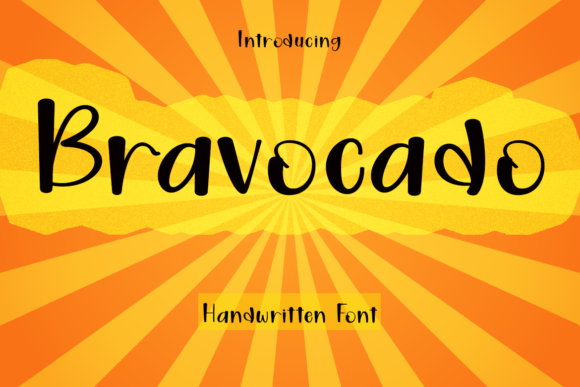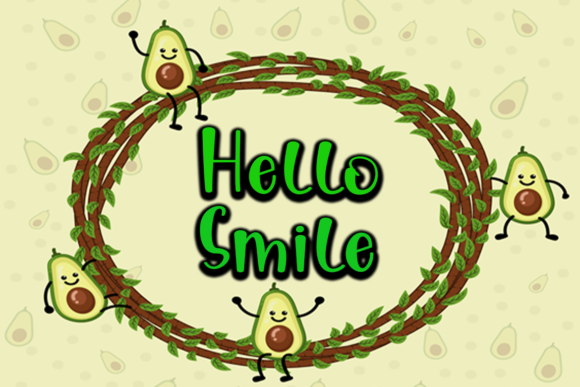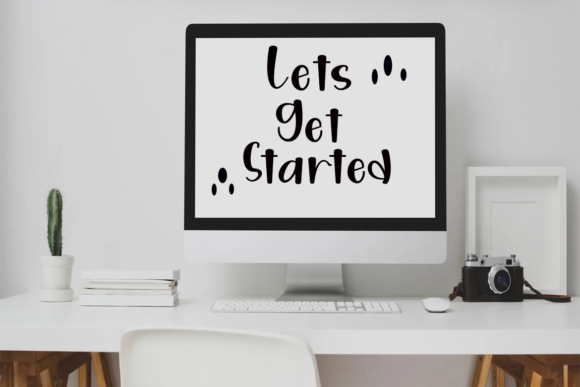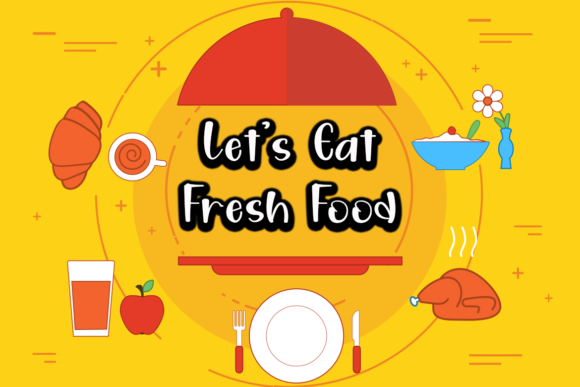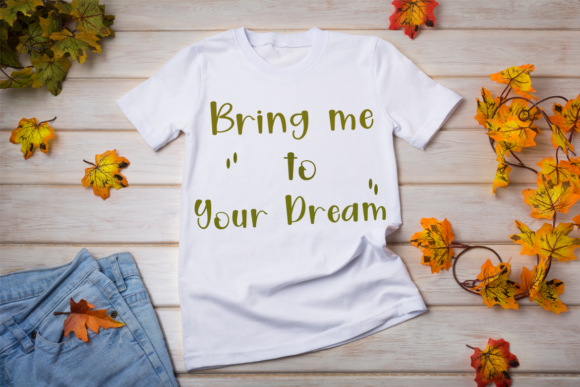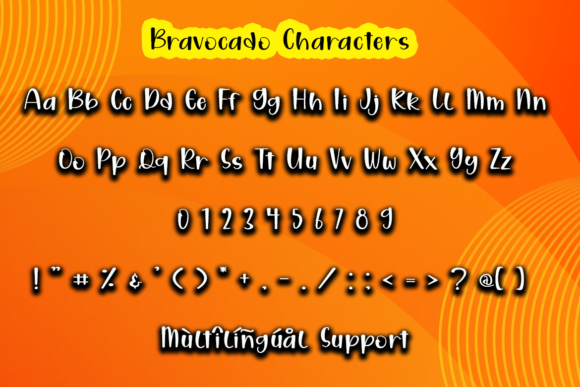
Bravocado Font
About Bravocado Font
“Bravocado” emerges as a remarkable handwritten font, offering a fusion of greatness and versatility that elevates it to a league of its own. This font seamlessly adapts to a diverse range of design projects, adding an element of depth that propels them to new heights. By infusing your favorite creative concepts with the charm of “Bravocado,” you’ll witness a transformation that breathes life into your ideas.
What distinguishes “Bravocado” is its ability to effortlessly shift between roles—its handwritten style exudes an air of authenticity while maintaining a sense of adaptability that suits a variety of contexts. With each carefully crafted letter, the font paints a vivid picture of creativity and potential.
Visualize the transformative prowess of “Bravocado” across an array of designs—a dynamic poster infused with the font’s unique flair, amplifying the message it conveys. Envision the font gracing a trendy clothing brand’s logo, effortlessly reflecting the brand’s innovative spirit. This font’s versatility extends gracefully to various applications, enhancing projects with a layer of adaptable artistry.
The natural allure of “Bravocado” is magnetic, like an energetic pulse that invigorates the page. Its letters resonate with a vibrant rhythm, adding a dynamic dimension that elevates the overall design. The font carries an aura of spirited creativity, inviting creators to embark on a journey of imaginative exploration.
Designers and enthusiasts alike will undoubtedly be captivated by the versatility of “Bravocado.” Its adaptability transcends conventional norms, making it an indispensable tool for a myriad of projects. Beyond being a mere font, “Bravocado” evolves into a channel for self-expression, allowing creators to infuse their work with a dash of boundless ingenuity.
In essence, “Bravocado” serves as a testament to the transformative power that typography can embody. Its great handwritten style beckons you to embrace the endless possibilities of design, transforming your ideas into tangible creations that burst with life. As you navigate the realms of creativity, let “Bravocado” be your guiding companion, leading you to craft designs that reflect the essence of versatility and invigorate every canvas, all while celebrating the vivacity of your creative imagination.